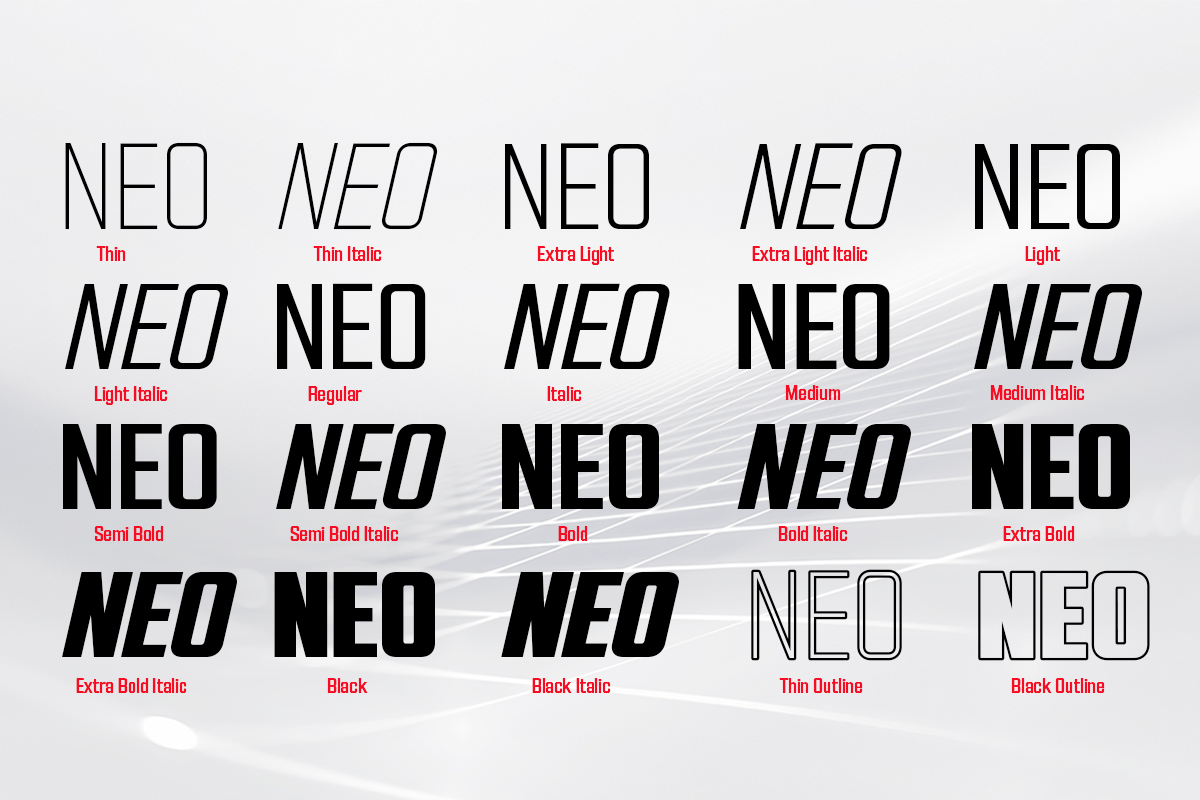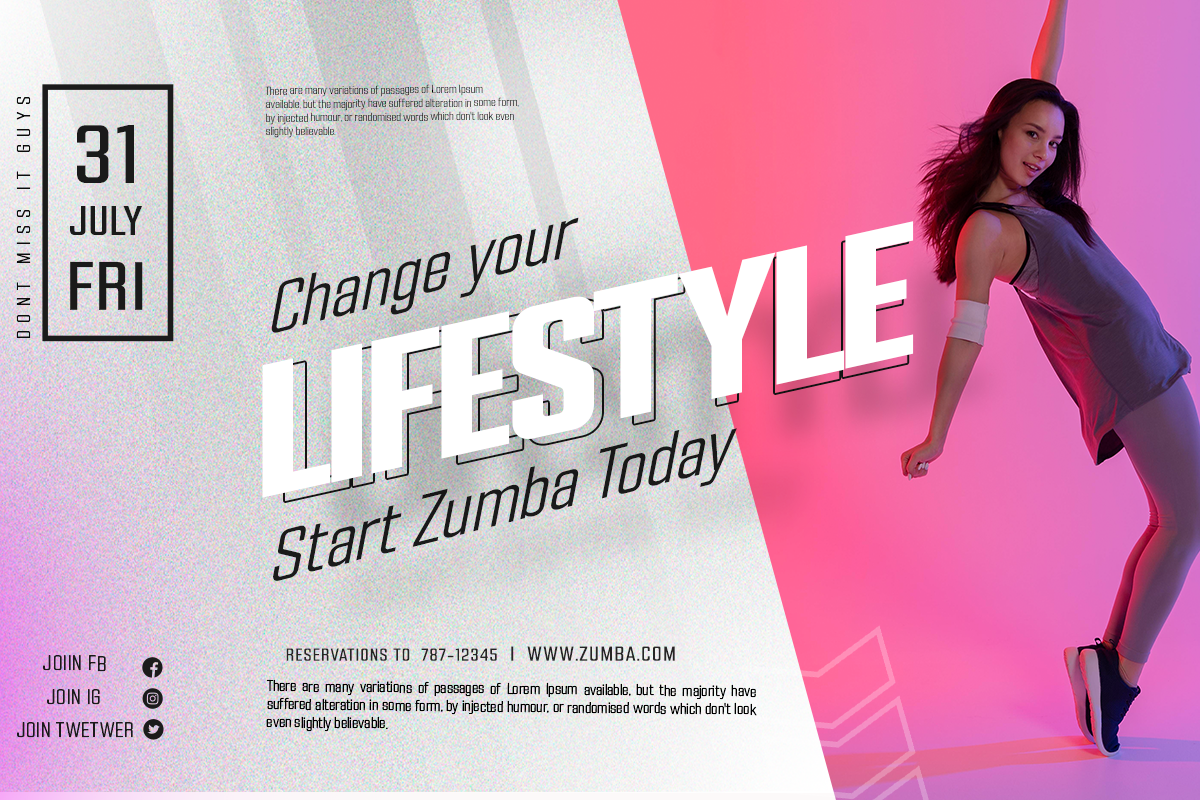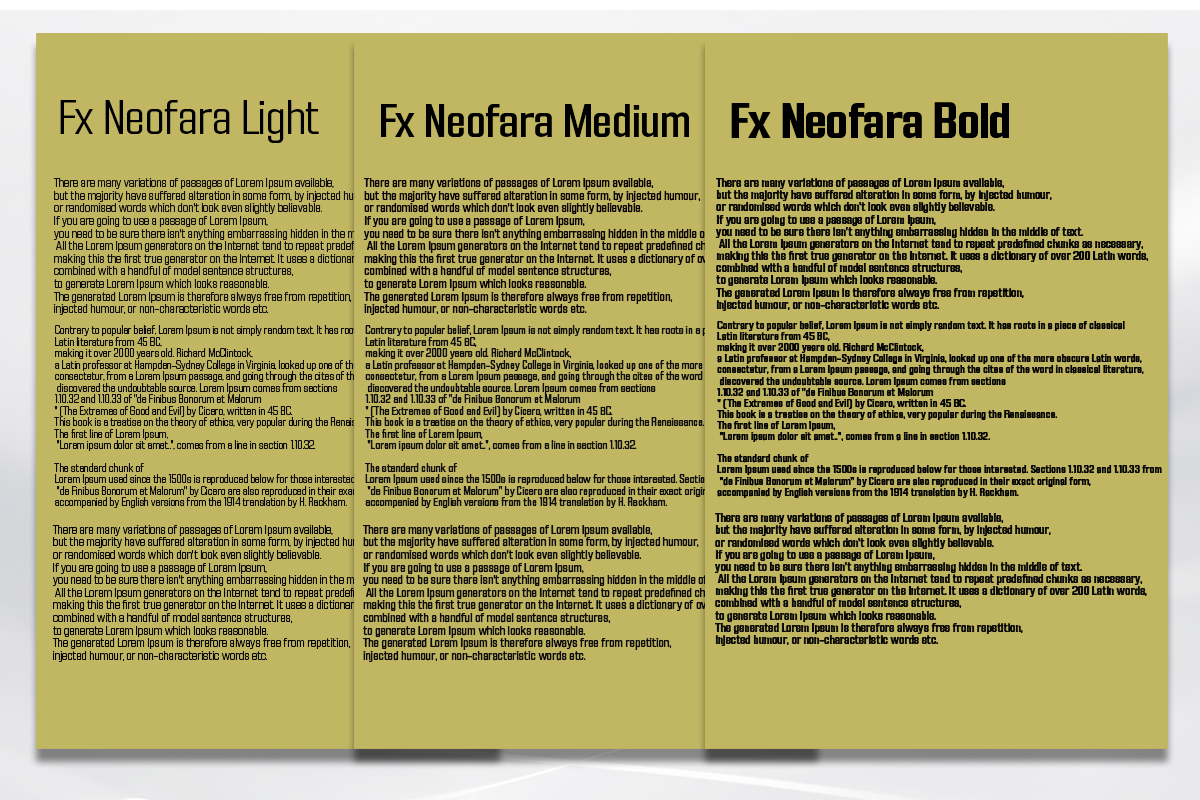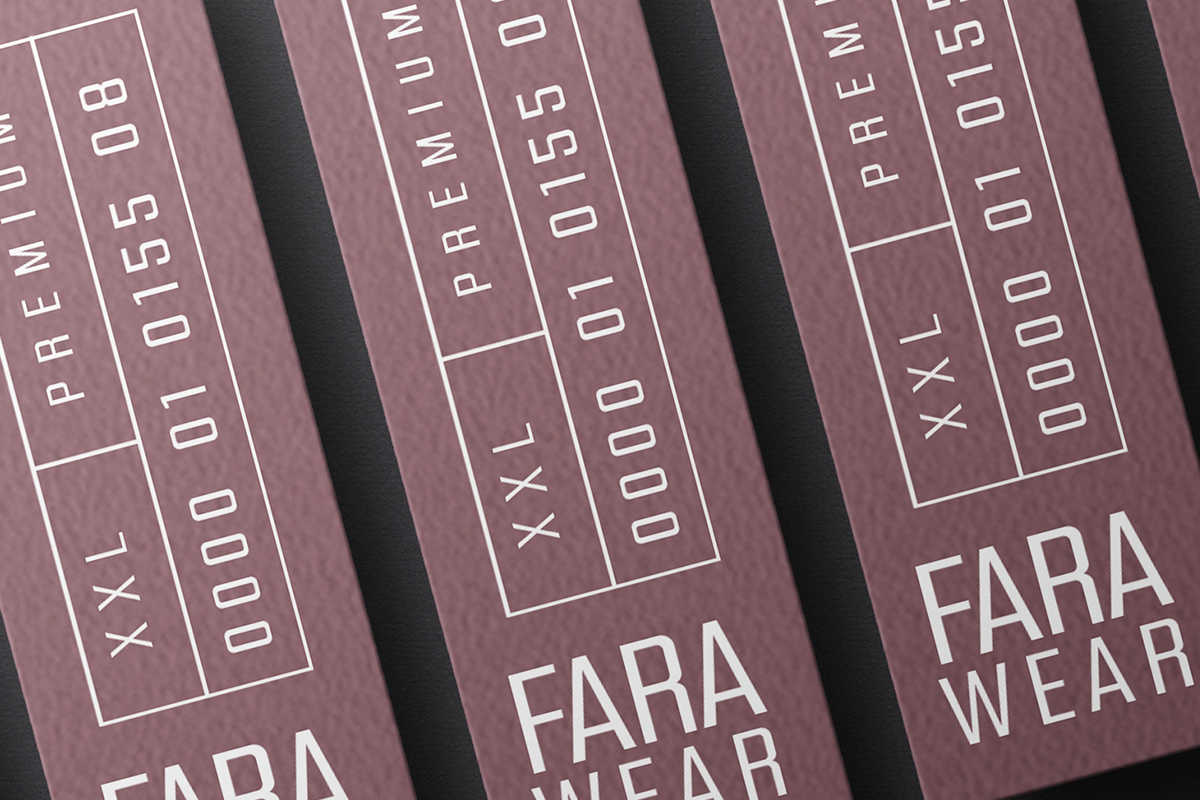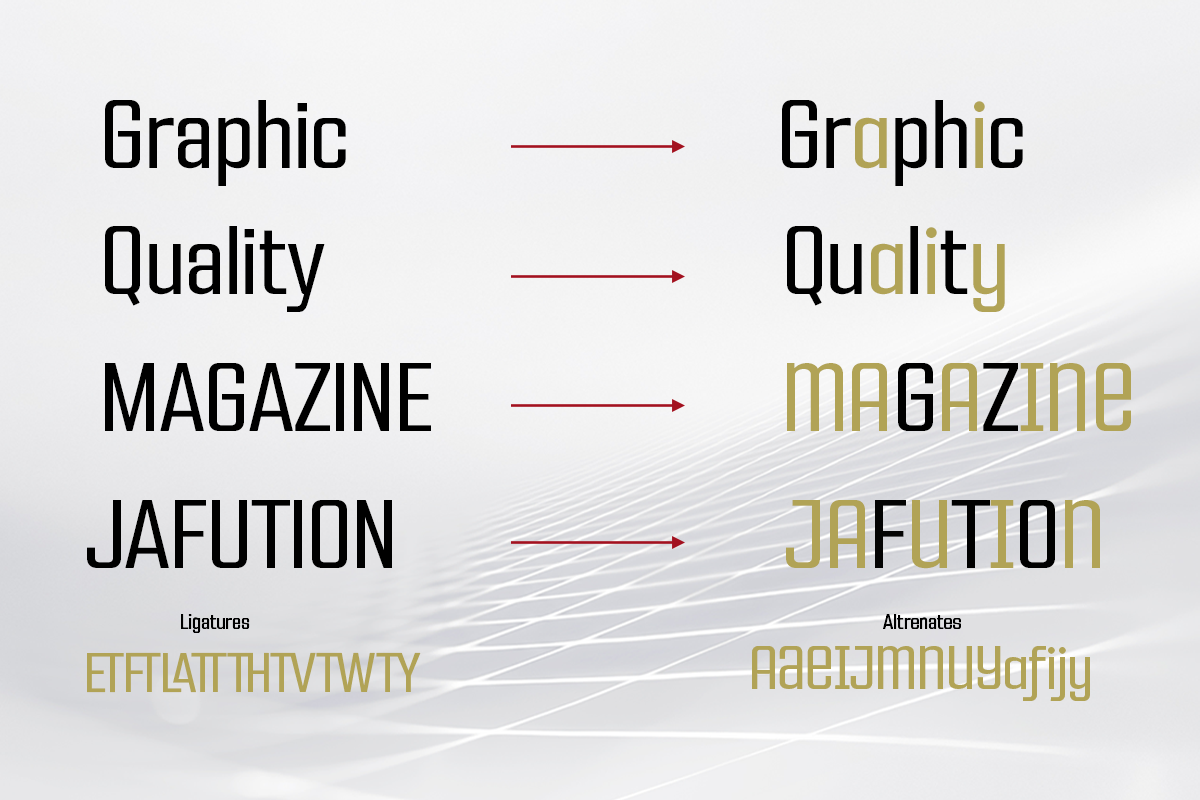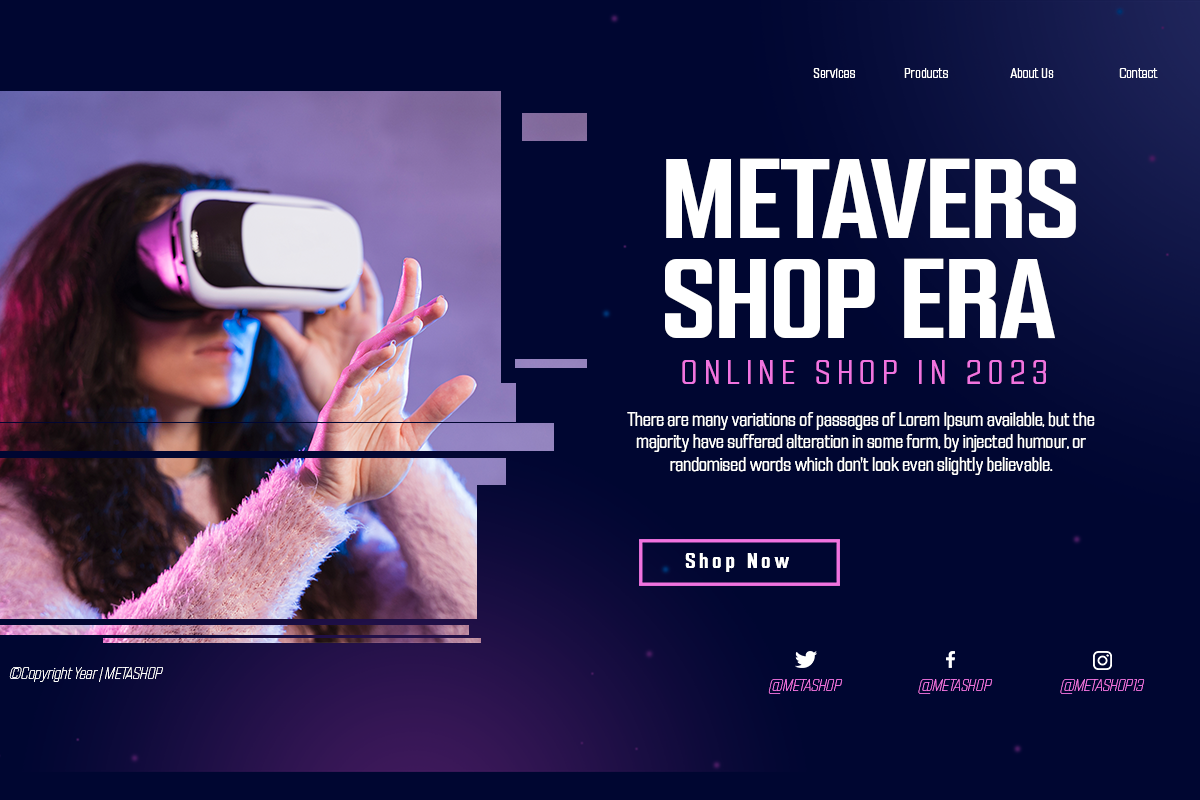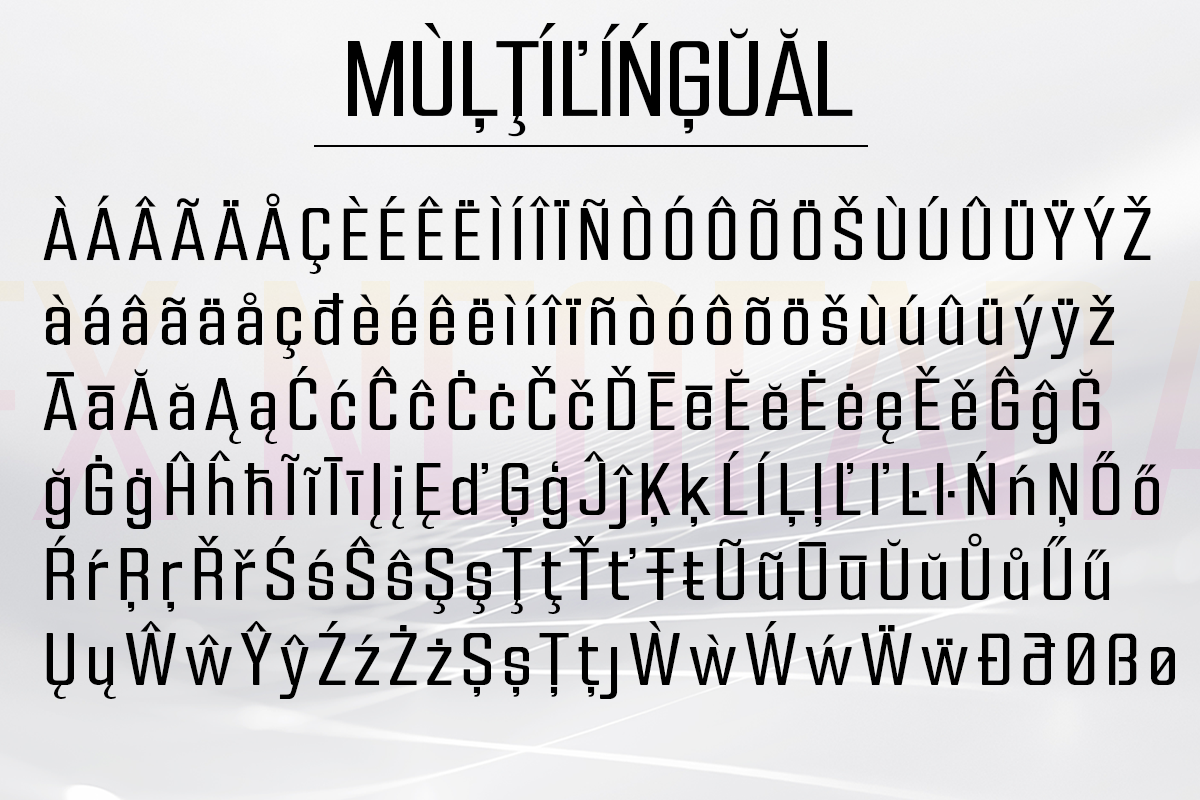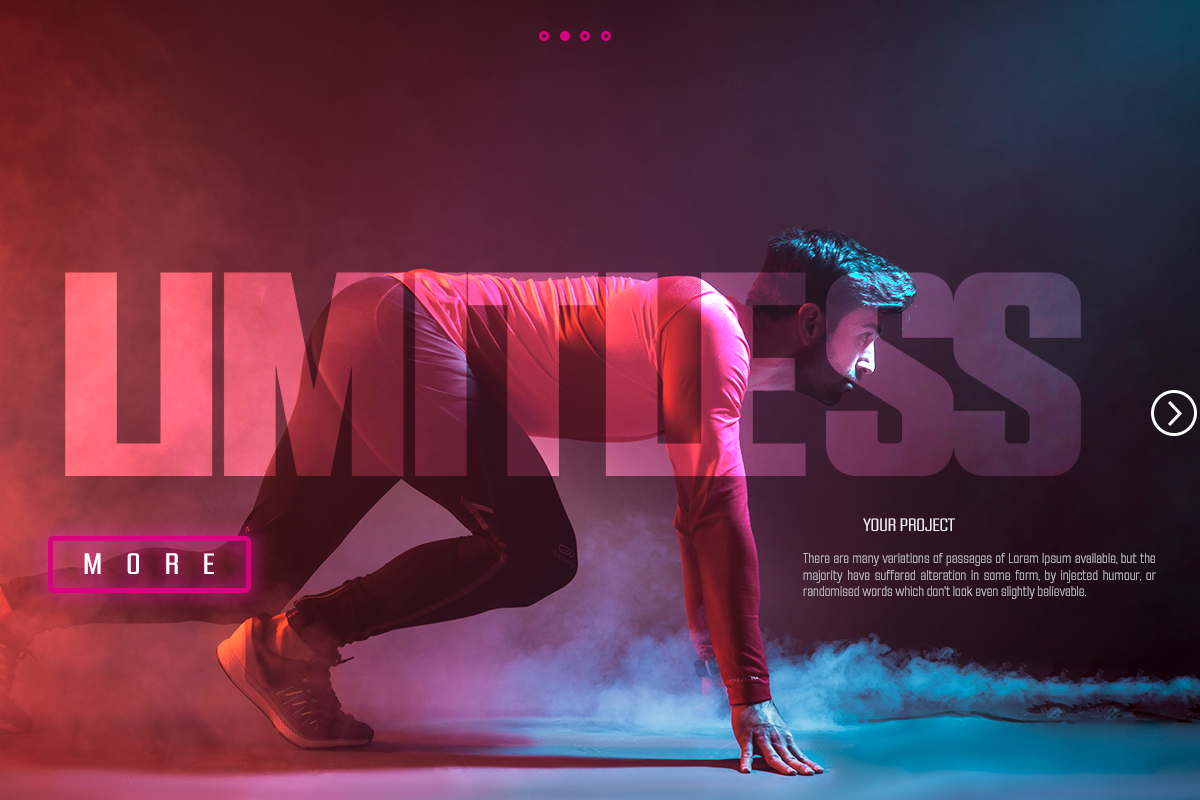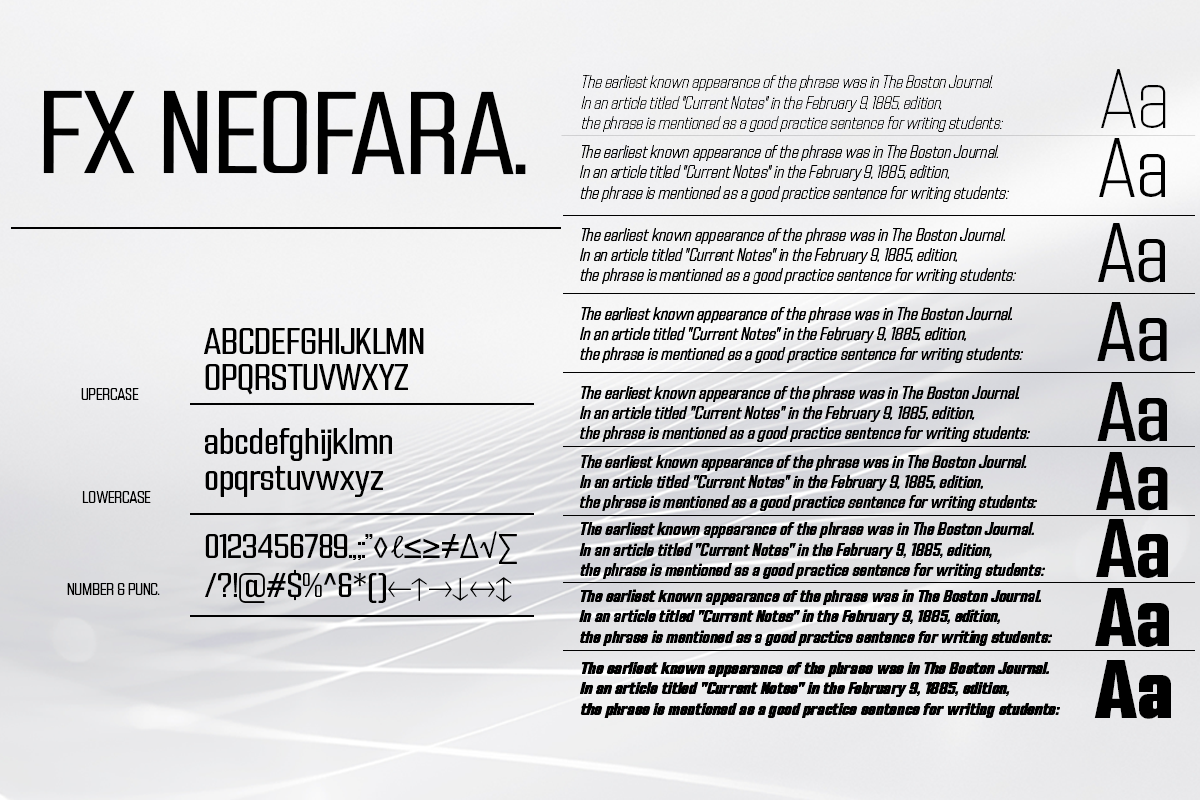
FX Neofara
FX Neofara is a sans serif font family that comes with 9 weights, 9 italics, and an outline. It’s perfect for documents, font logos, blogs, social media, marketing campaigns, and many other projects!
FX Neofara masterfully designed to become a true favorite, this font has the potential to bring each of your creative ideas to the highest level!